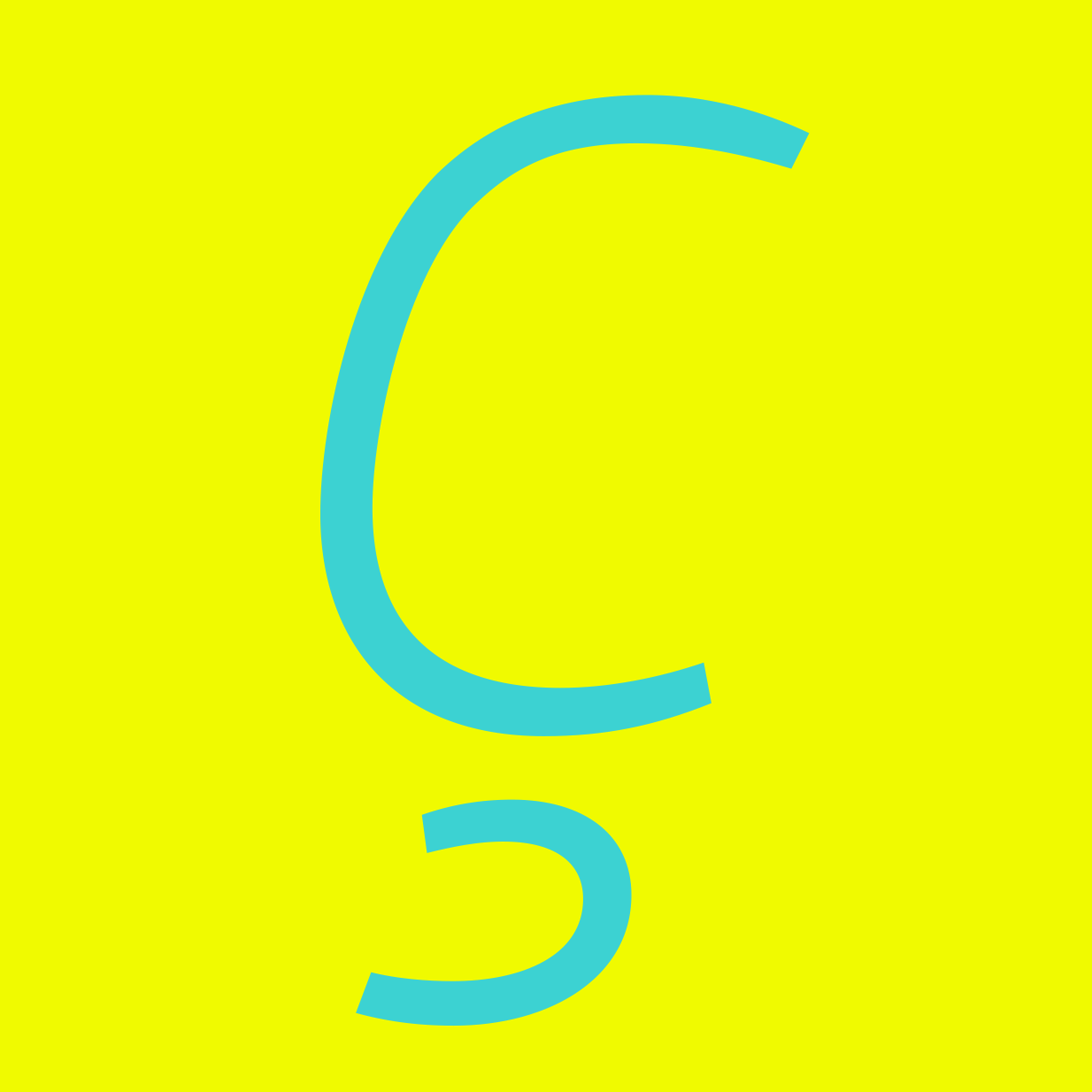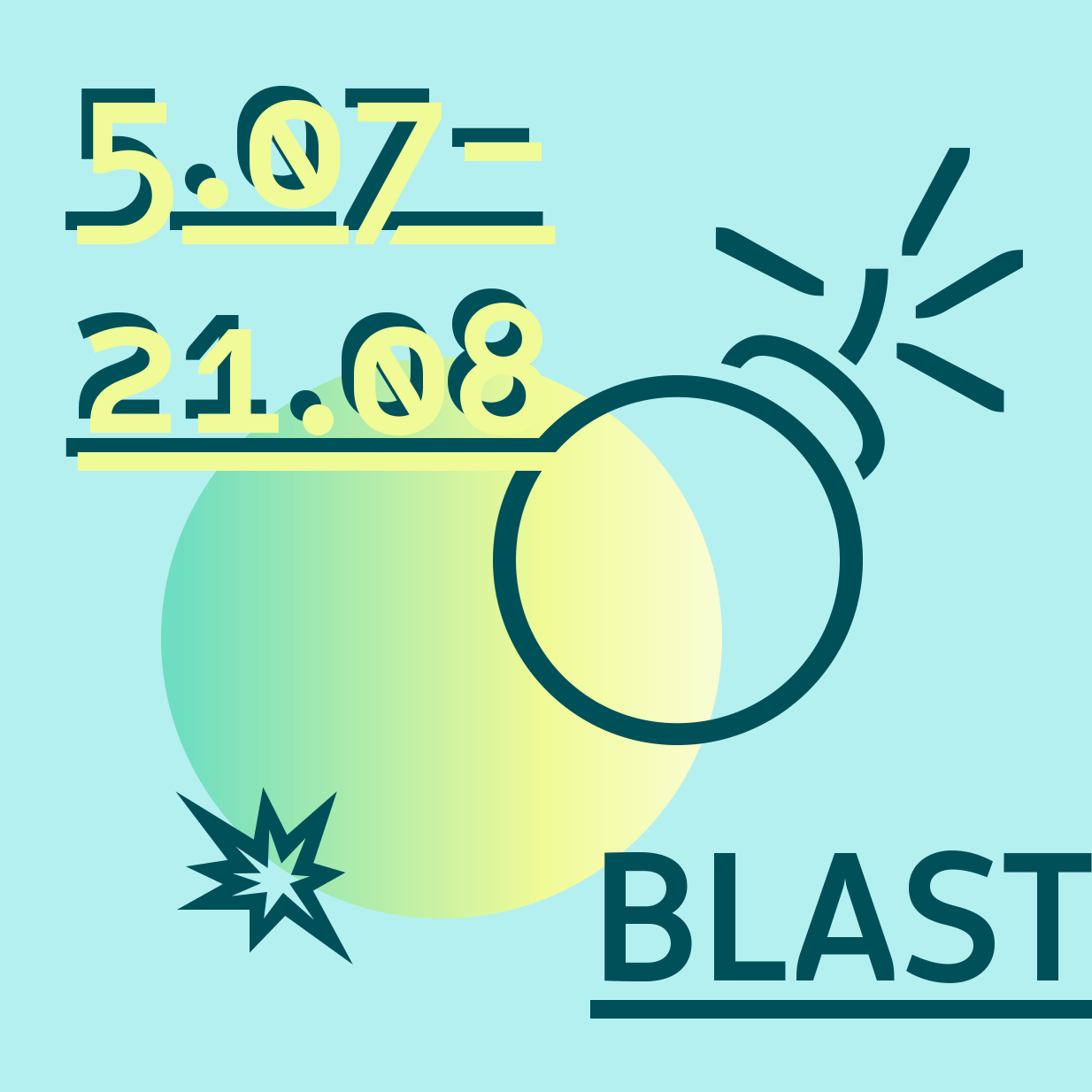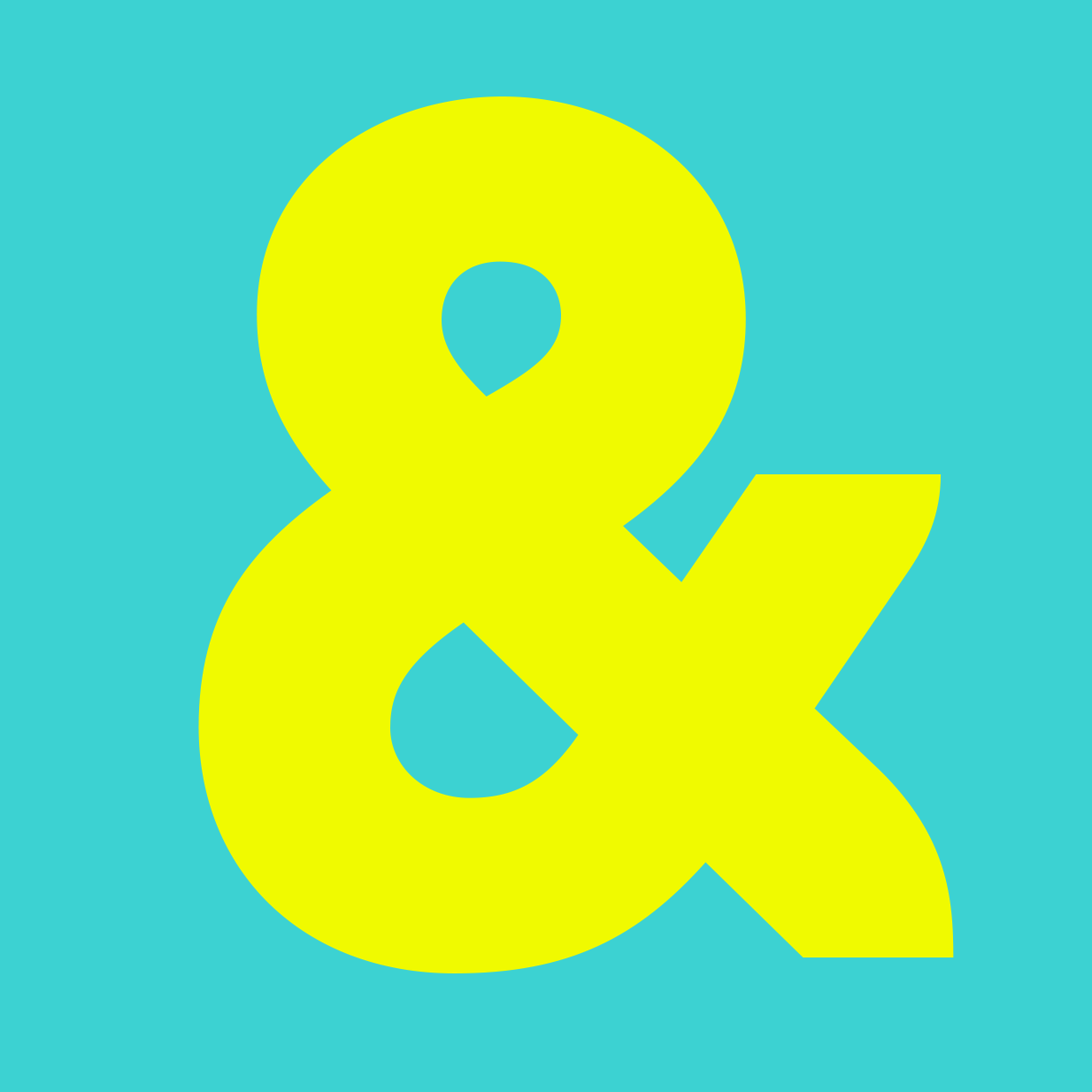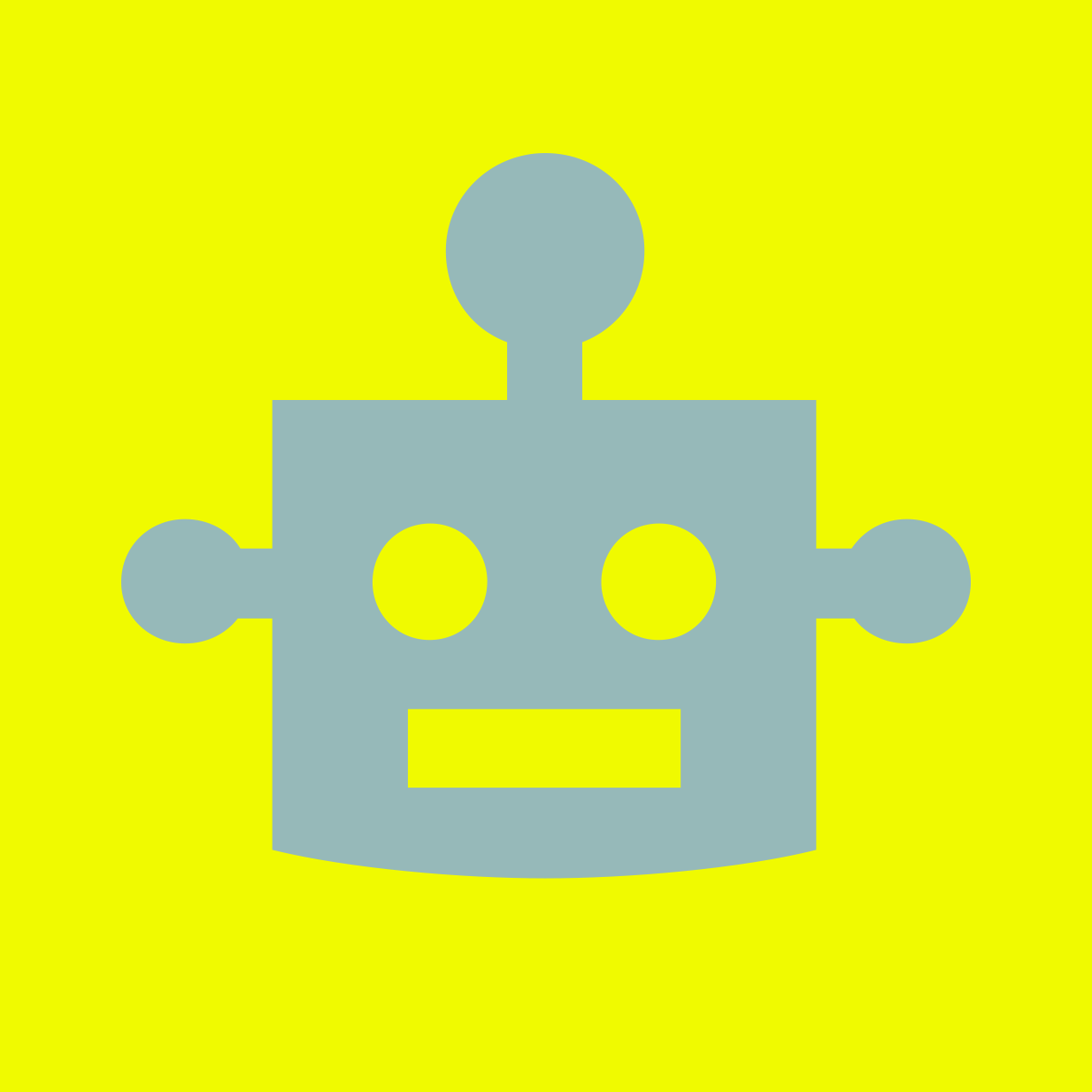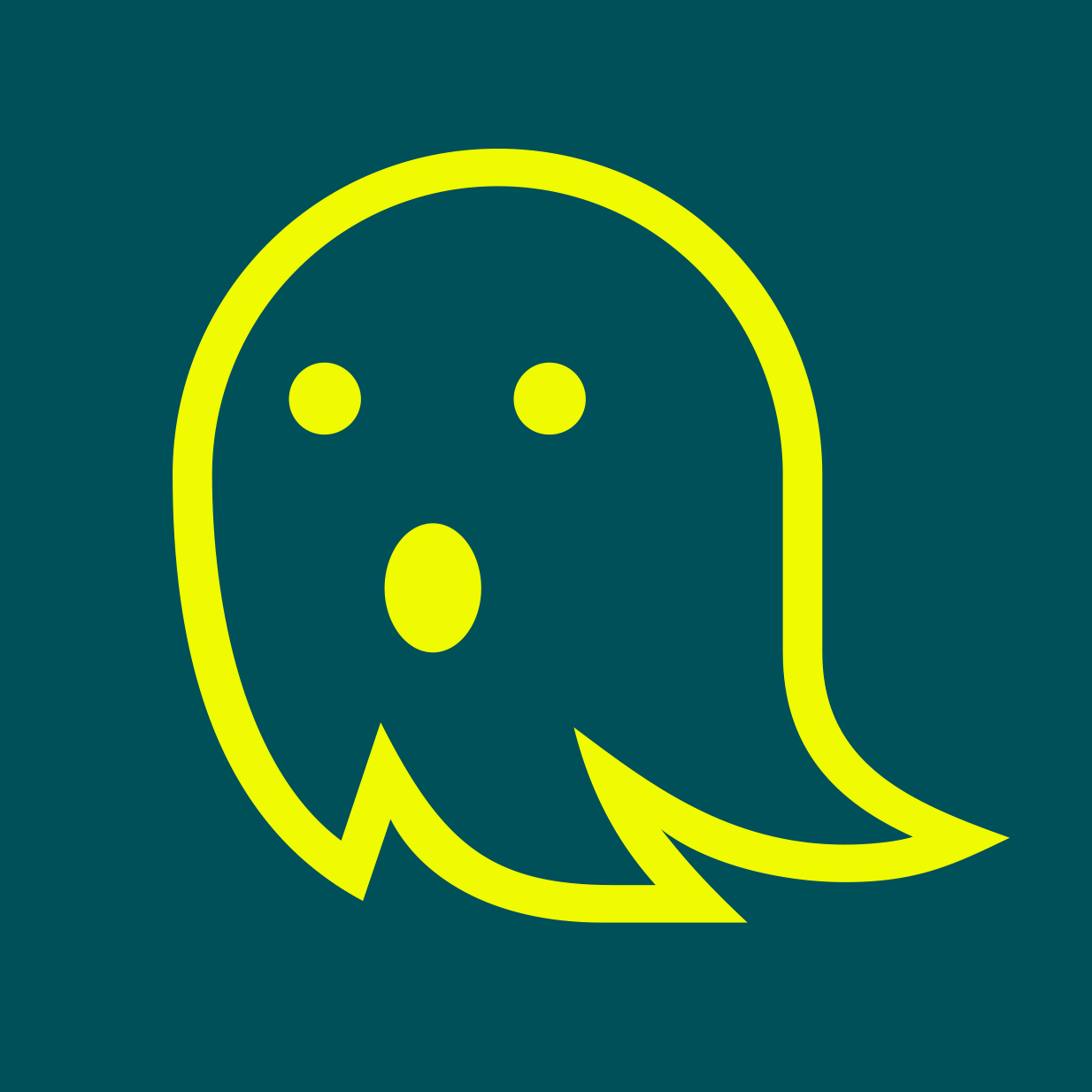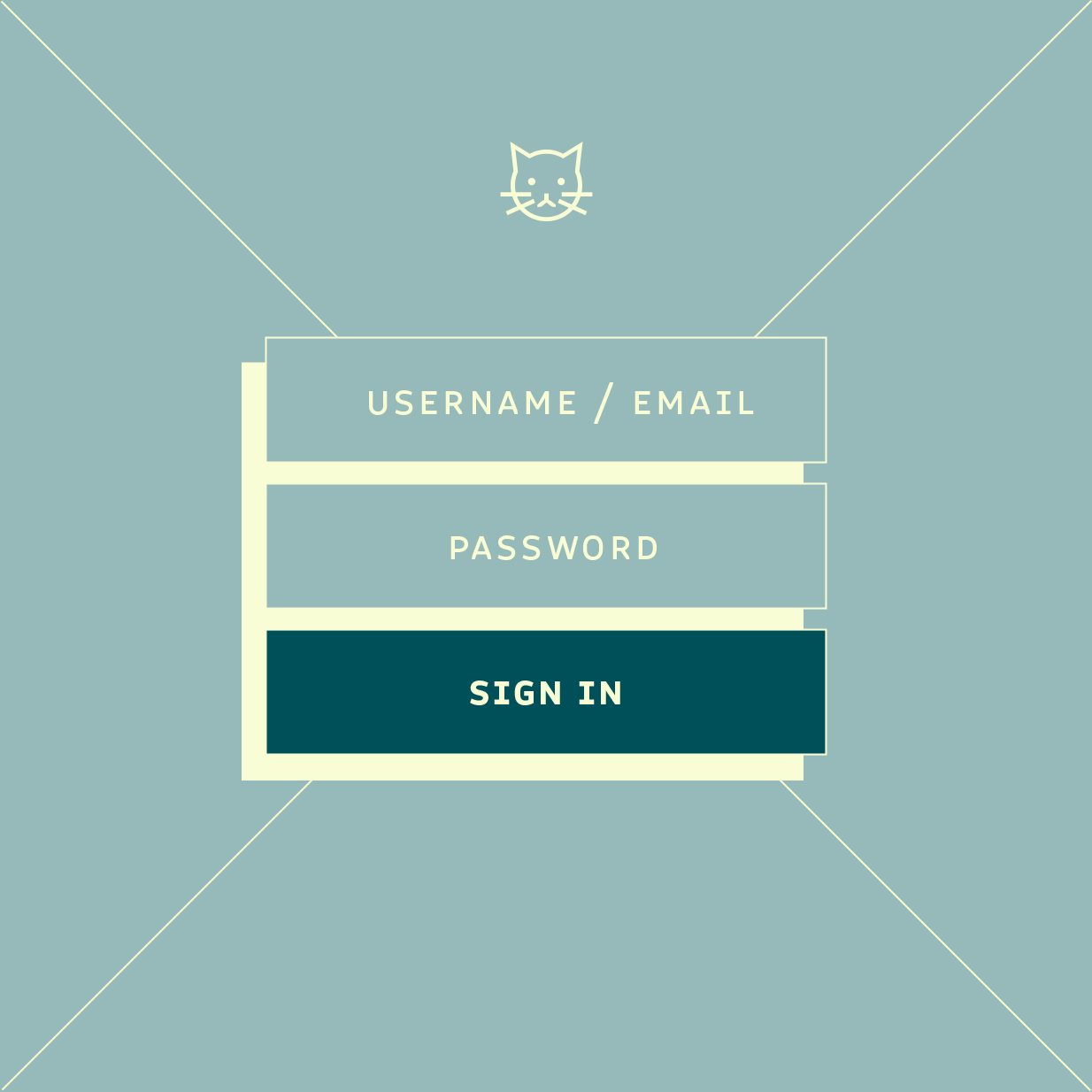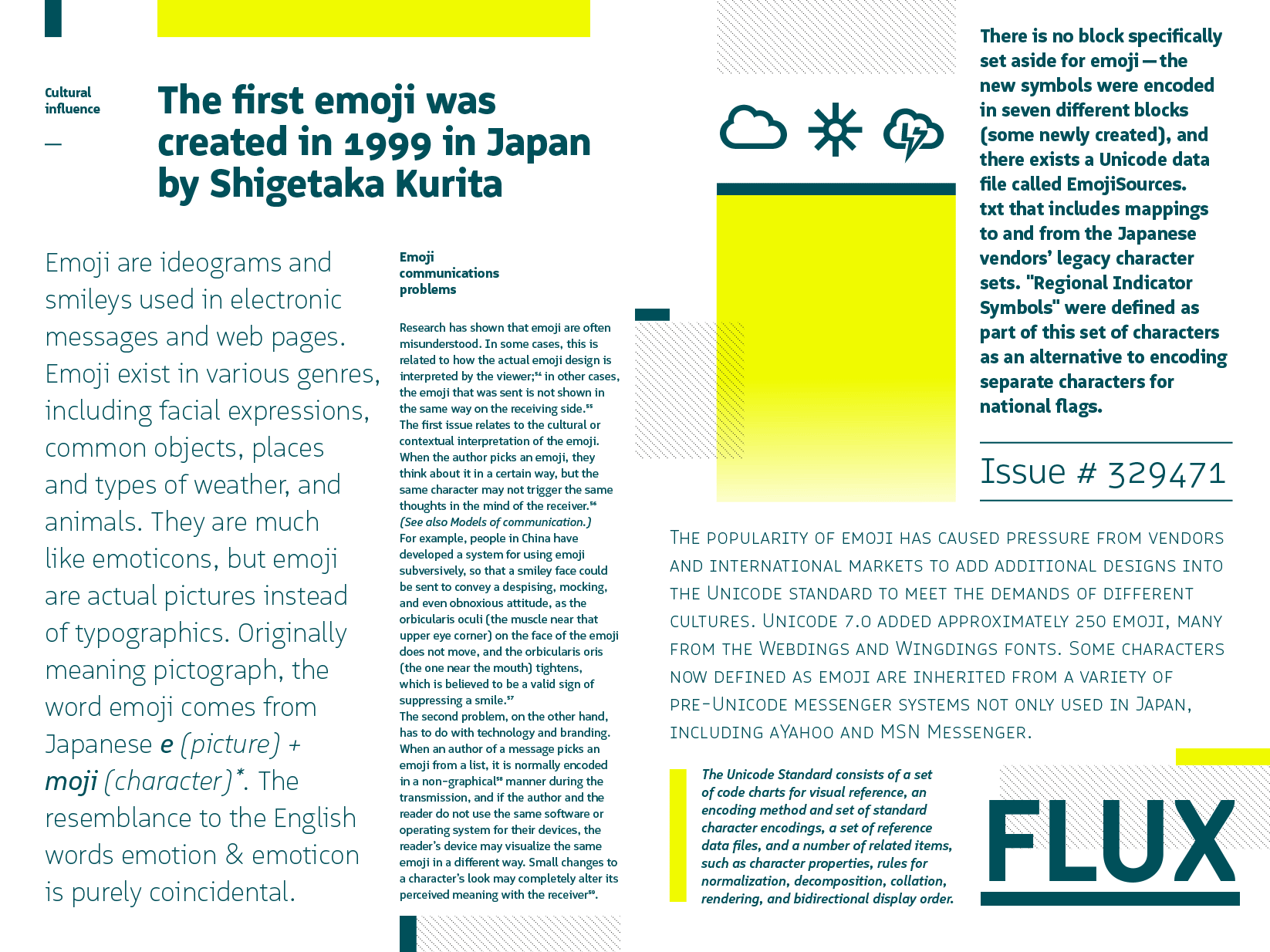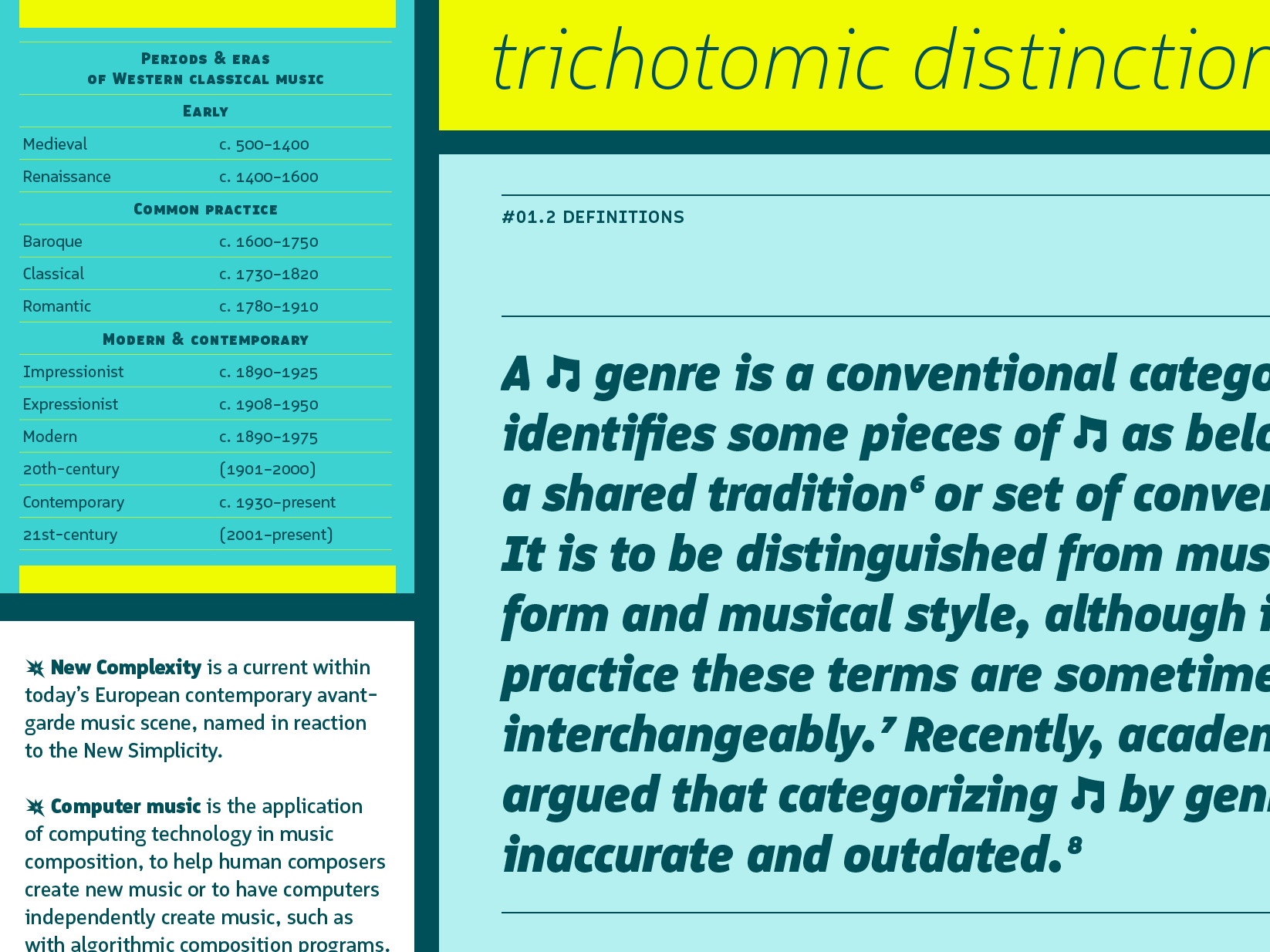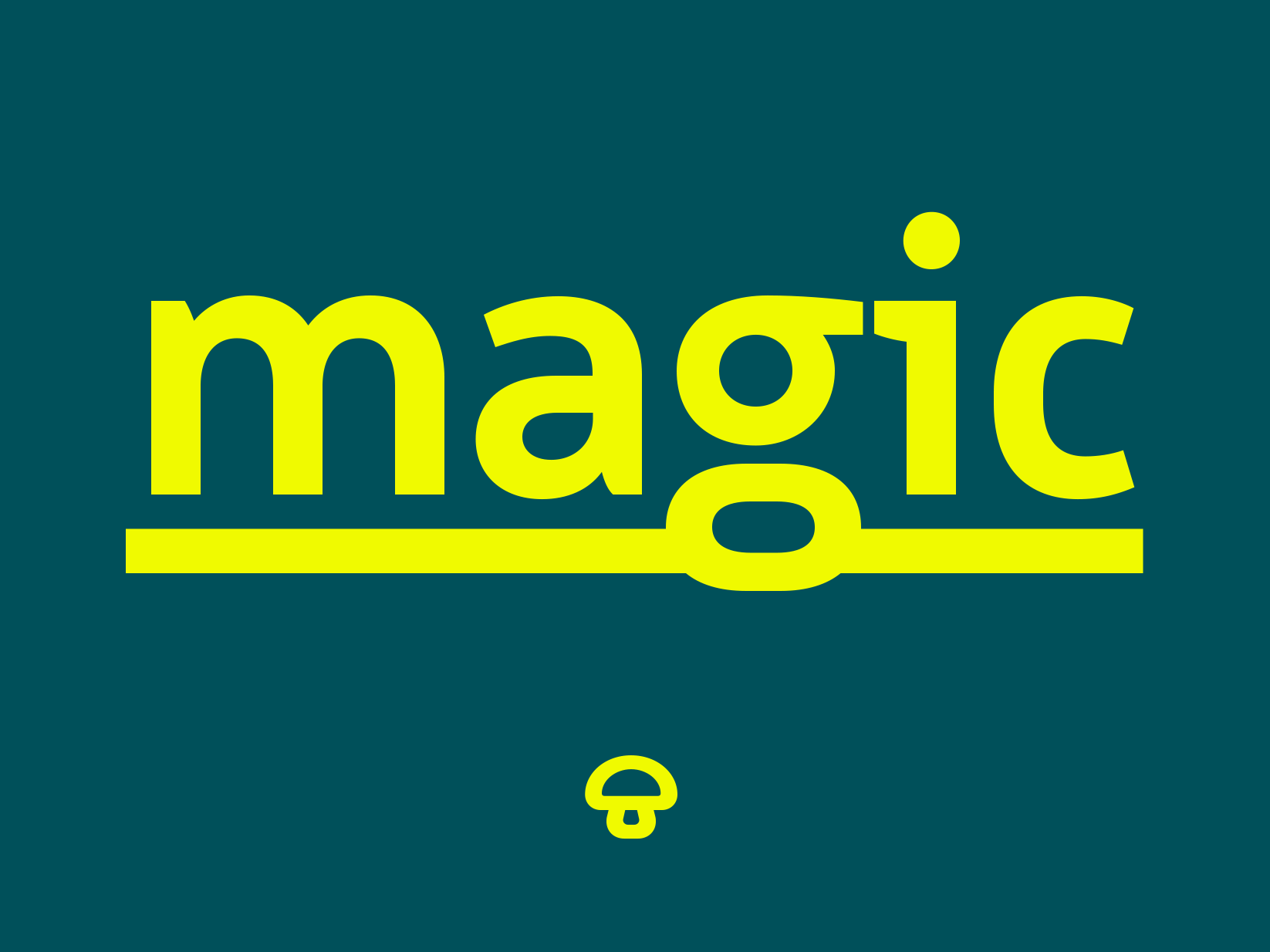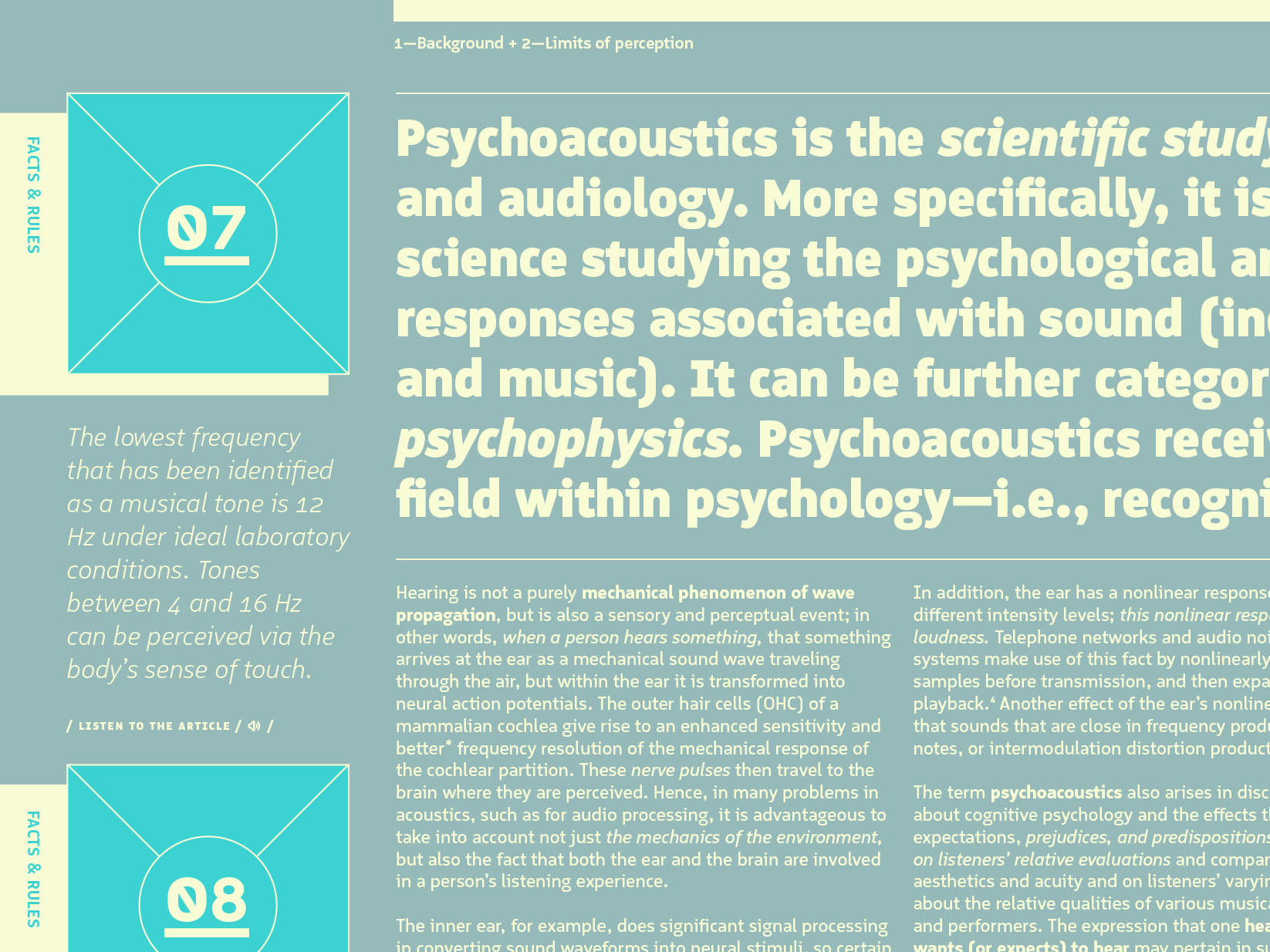
Logical
When a typeface is called ‘Logical’ you’re quasi expecting strong underlying principles and repeating design elements. And that is quite the case in Edgar Walthert’s new sans-serif family. But he pairs these rules with affable, soothing details that make for an overall warm and approachable design. While the basic structure of the letterforms is oval and compact, there are circular patterns to discover. Terminals are tapered towards the end, many of them in soft curves, and apertures stay open.
Walthert wanted Logical to be geared to web and screen design so he started out by drawing the letters on a 13 px grid for better rendering on standard resolution displays. Special underlined versions of the glyphs are available for links or other emphasis in interactive environments (Stylistic Set 19 and 20). All eight weights from Thin to Black are accompanied by real italics and an extensive set of pictograms and icons. These are accessible via smart OpenType features that automatically convert words into associated symbols (Stylistic Set 01, 02, 03 and 04 for Englisch, German, Dutch and French respectively). Or simply type the right keyword between two colons like :this: For a complete list of keywords, more info, demos and a full glyph overview check out the Logical specimen site. And if all fails, the icons are also accessible via their unicode value.
Logical is a great choice for interactive designs, websites, user interfaces, signage or other text were readability is key. The slightly technical, DIN-like structure paired with a humanist feel will fit a wide range of applications.